What struck me instantly upon going through them, however, was the unbelievable amount of signage, gorgeous lettering, medieval stone lintels, and street art by way of graffiti. The city, our favorite on earth, is alive with text, with branding, with thoughtful use of font, design, and so many unique displays of art that just hum in the background. I thought it’d be fun to show you some, some of what caught my eye, some of what I enjoyed whilst there.
I’ve long been a sucker for this kind of thing, always drawn to old signwork, old branding, old hand lettering and the likes. Here is some of what I saw whilst wandering that ancient Auld Reekie that is Edinburgh:
Many, many more photos to come, but I just wanted you all to see what I saw, on a small scale, in letters, in signs, in logos, in spray paint on those ancient walls.
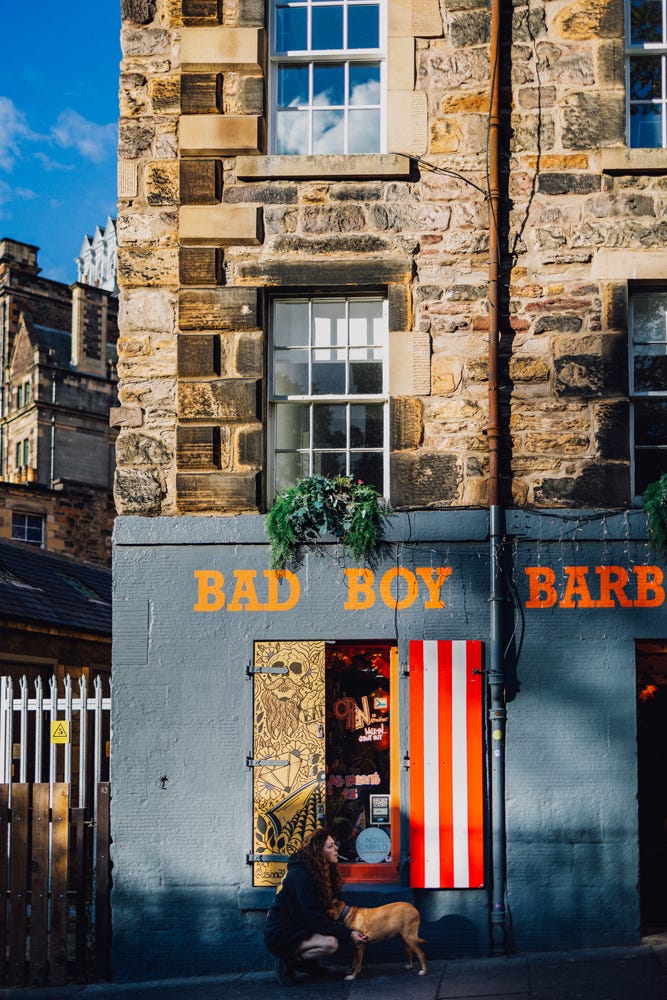
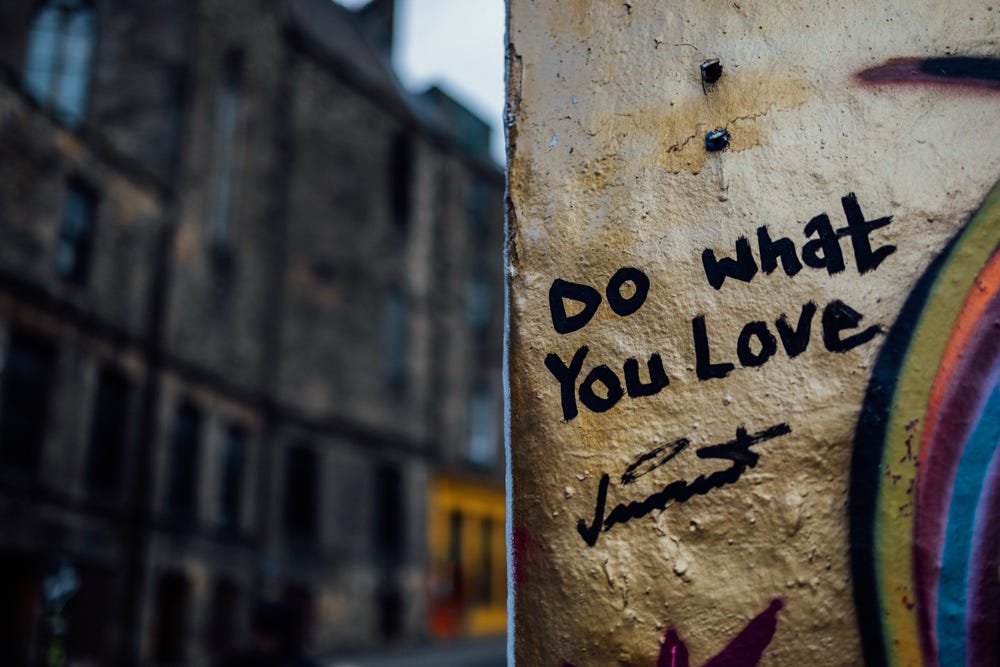
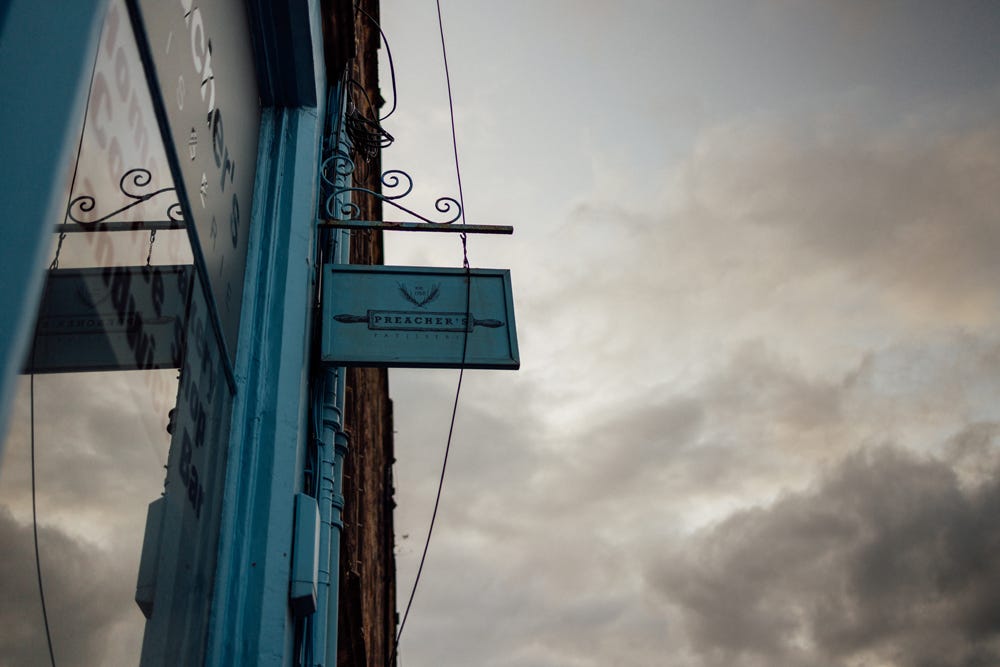
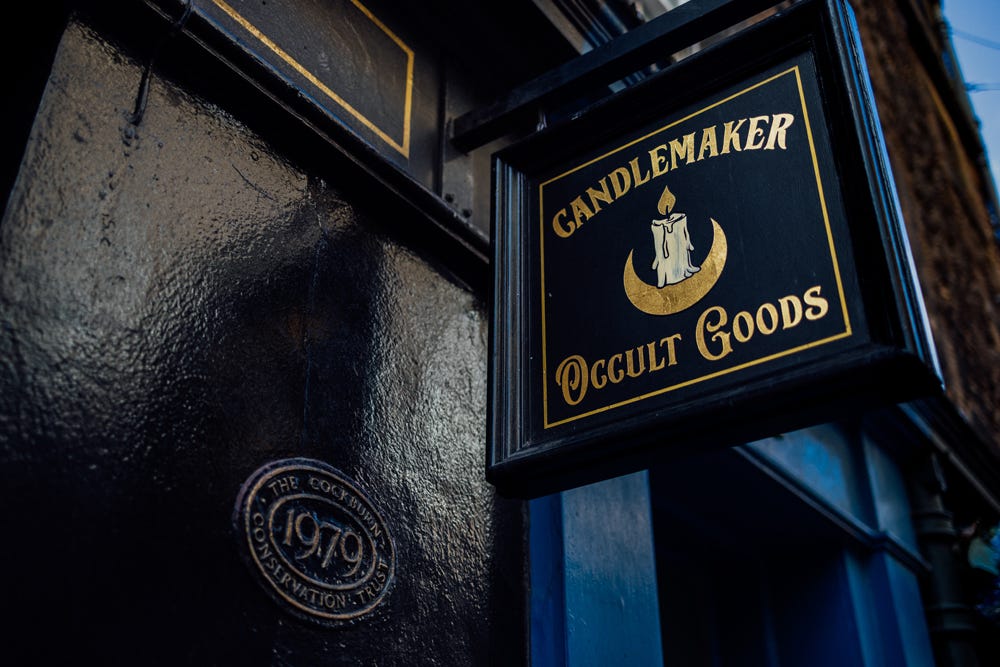
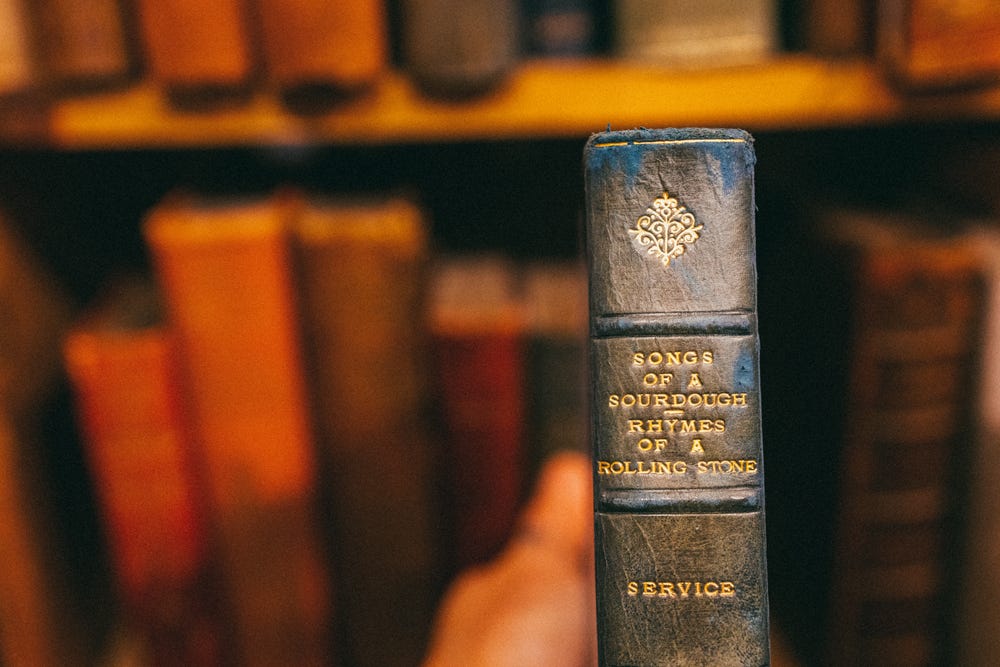
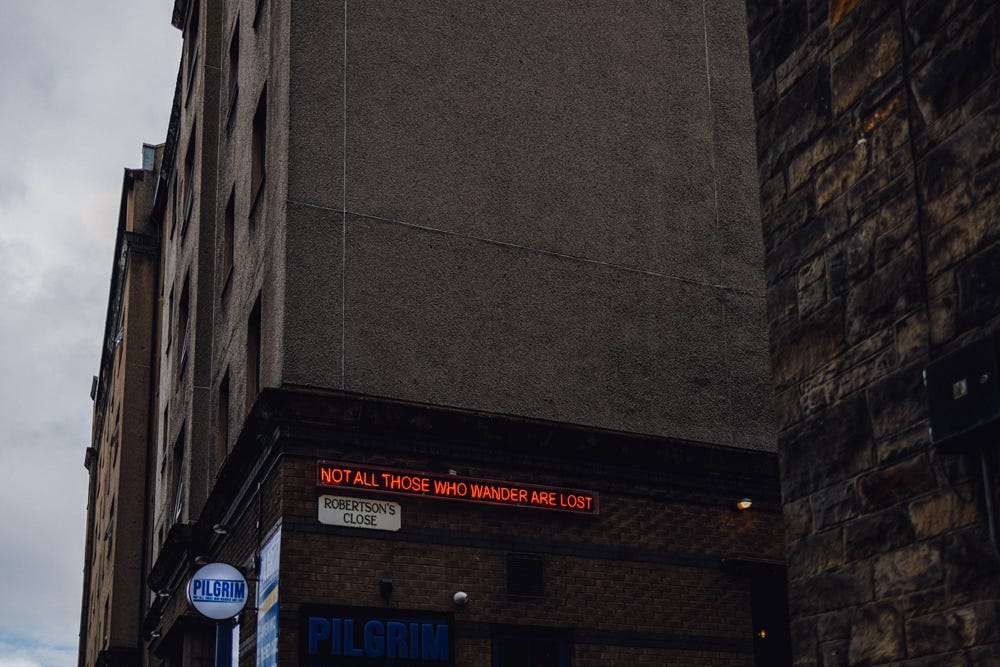
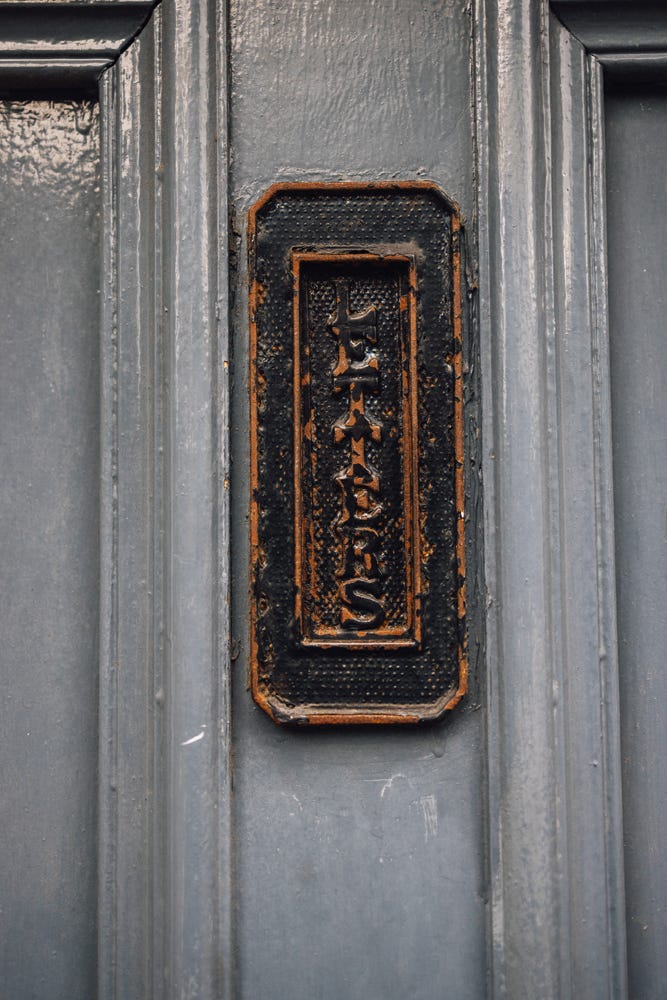
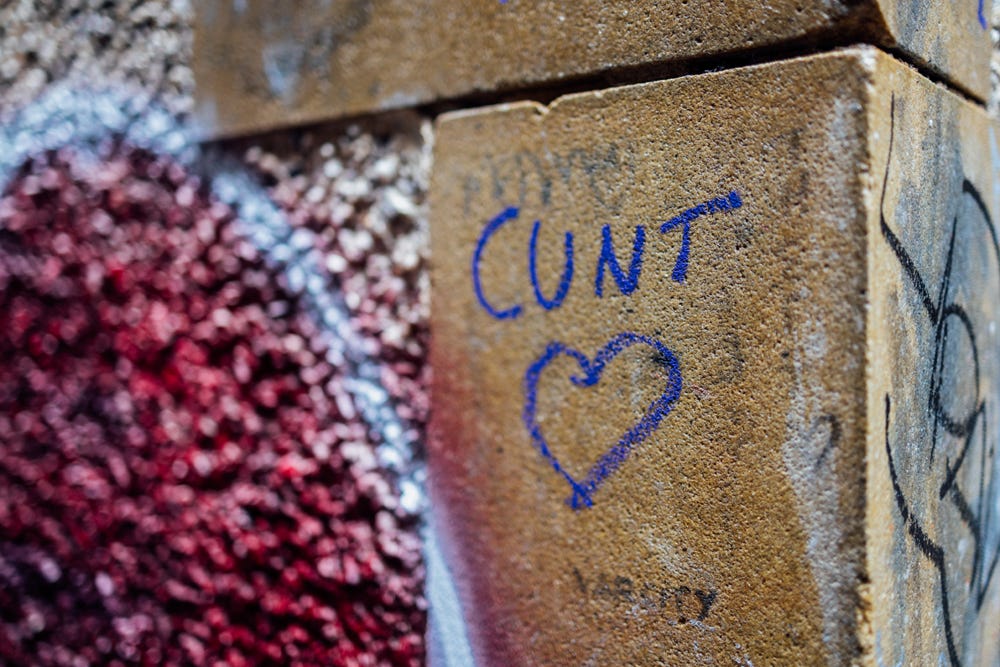
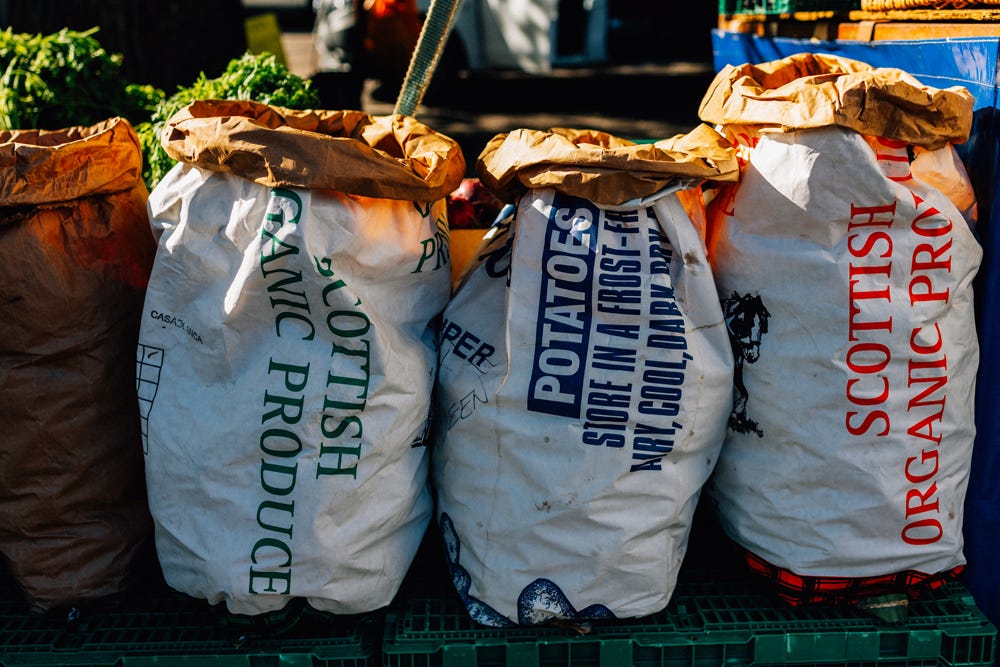
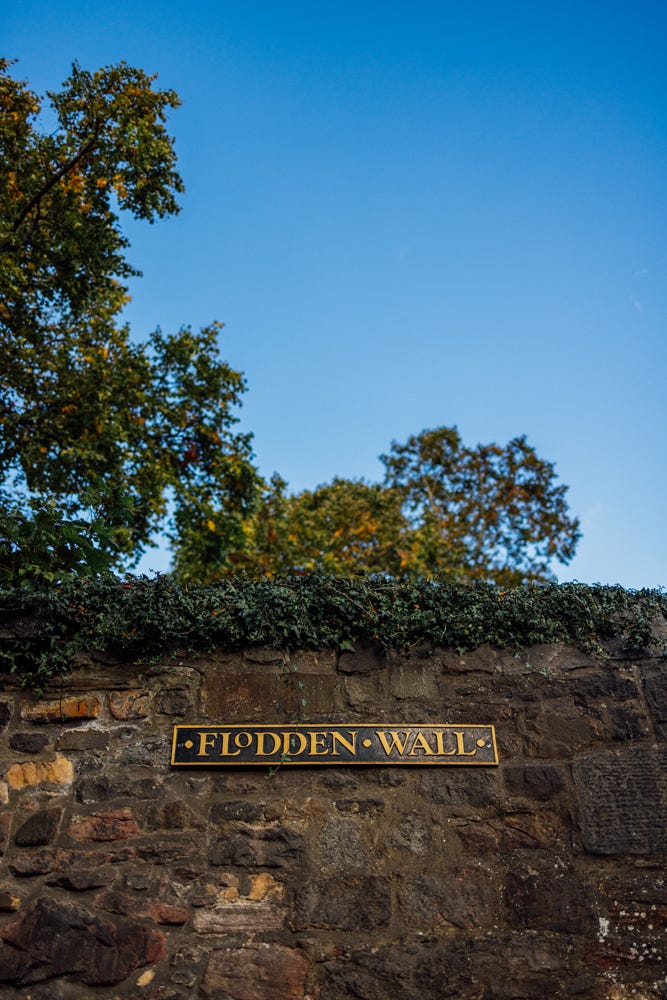
One of my favourite cities! So magical. You've captured it brilliantly. "Songs of a Sourdough, Rhymes of a Rolling Stone" made me smile.